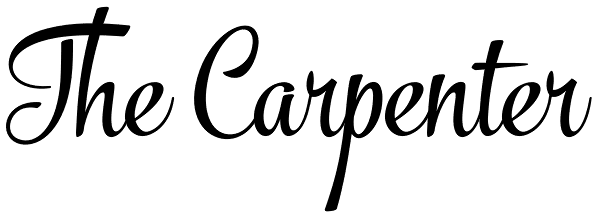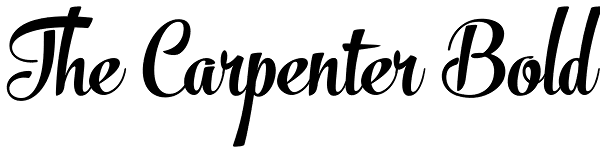
The Carpenter
The Carpenter is an elegant and versatile connected script family of three weights. The Carpenter also has a set of ornaments, patterns and pictograms designed to support the script font. The Carpenter has plenty of OpenType features: To activate...